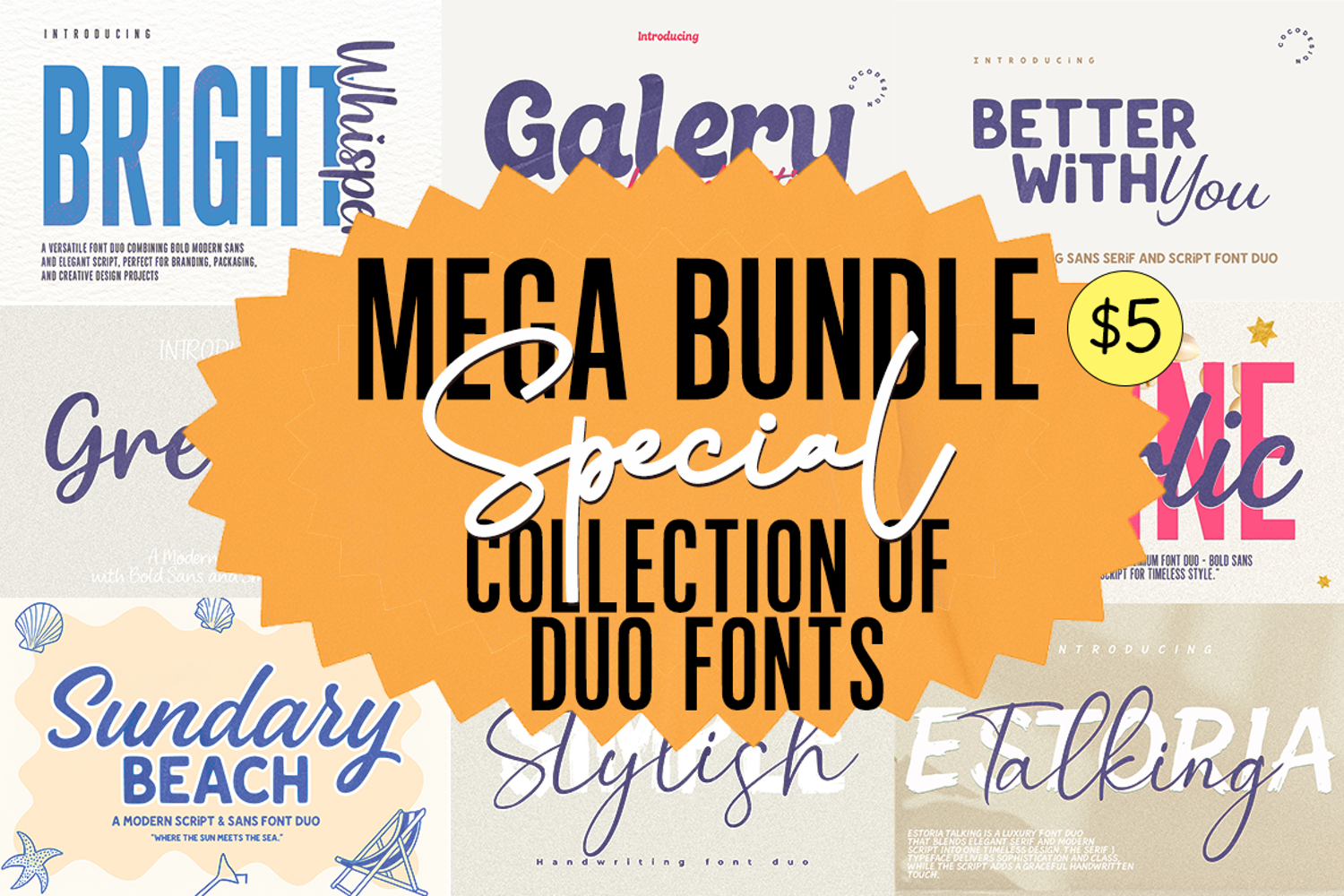
Mega Bundle Special Stylish Duo Font Collection
An exclusive collection featuring a combination of modern sans and elegant script fonts in one versatile package. Each duo is designed to create perfect visual balance between bold and soft styles, suitable for branding, packaging, logos, invitations, and social media projects.
🎨 Font Examples:
• Bright Whisper
• Better With You
• Sundary Beach
• Simple Stylish
• Galery Handwriting
• Estoria Talking
• And more collections inside